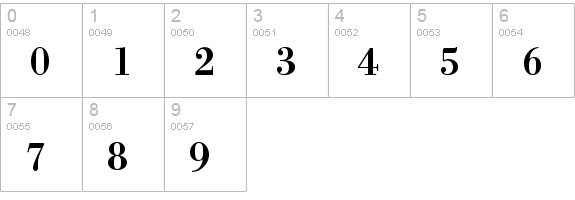
Bodoni BE Medium Font Details
Bodoni BE Medium is a balanced, medium-weight variant in the Bodoni typeface family \xE2\x80\x94 well suited to sub-headlines, navigation, and balanced editorial work.
Bodoni BE Medium font exudes elegance and sophistication with its refined and classic design. Known for its clean lines and sharp serifs, this typeface is perfect for conveying a sense of luxury and modernity. The Bodoni BE Medium font strikes a perfect balance between tradition and contemporary style, making it a versatile choice for a wide range of design projects. What sets this font apart is its timeless appeal and readability, making it ideal for a variety of applications such as editorial design, branding, and advertising. Whether used for headlines or body text, Bodoni BE Medium font commands attention and adds a touch of sophistication to any design. The best part is that Bodoni BE Medium font is available for free download at FontsMarket.com, making it easily accessible for designers and creatives looking to elevate their projects with a touch of elegance. Don't miss out on the opportunity to enhance your designs with this premium font that exudes style and sophistication.